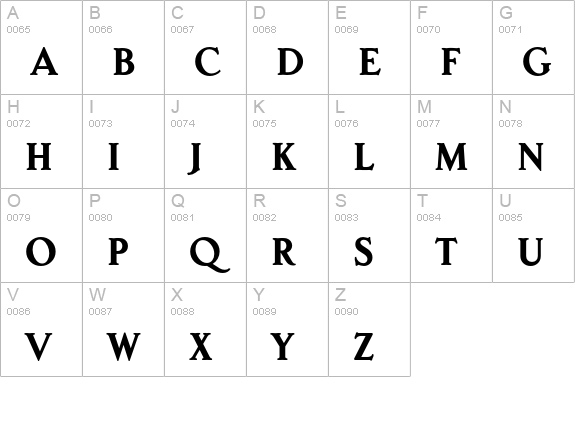
Central Station Std Bold is a strong, high-contrast variant in the Central typeface family \xE2\x80\x94 well suited to headlines, attention-grabbing titles, and strong calls-to-action.
Central Station Std Bold is a versatile and modern font that exudes strength and sophistication. With its bold and prominent design, this typeface commands attention and makes a bold statement in any project. The strong, clean lines of Central Station Std Bold give a sense of confidence and authority, making it perfect for headlines, titles, and branding materials. What's even better is that Central Station Std Bold is available for free download at FontsMarket.com. This means you can easily access this high-quality font and use it in your designs without any cost. Don't miss out on the opportunity to enhance your projects with the impactful Central Station Std Bold font - download it for free today!